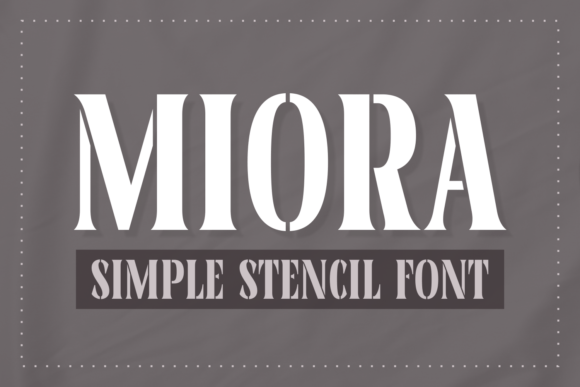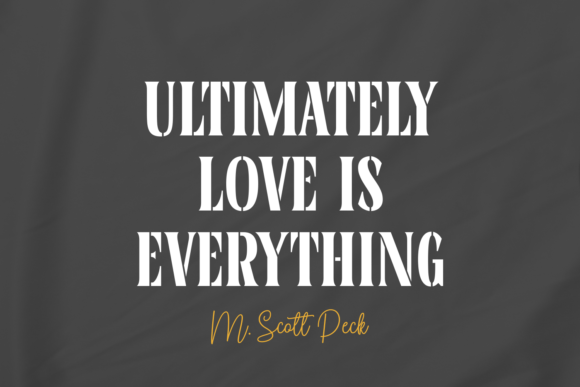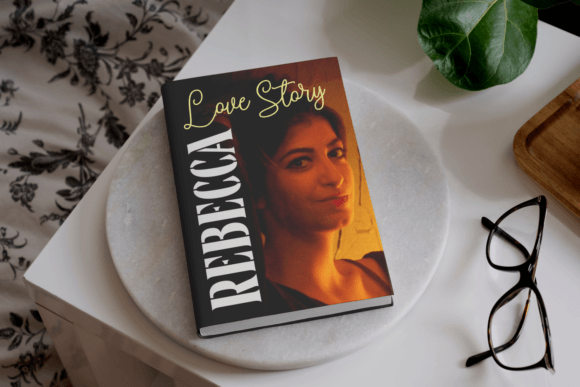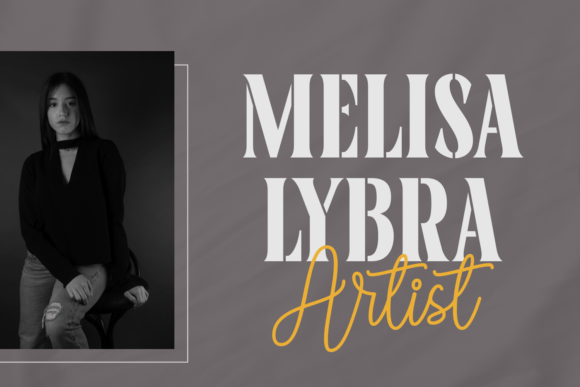
Miora Font: A Bold Stencil Serif for Headlines & Logo Design
About the Miora Font
The Miora Font is here to transform your projects with its distinctive character and style. Introducing Miora, a remarkable blend of sophistication and adaptability. As a Serif font, Miora is an attractive choice for branding, creating an iconic image that adheres to the mind. Its clean design makes Miora ideal for creating high-end fashion magazine content or stately book covers. This font is also perfect for making statements on apparel and t-shirts, while its quotable nature lends its use to memorable greeting cards. With a touch of authenticity, it has the power to transform packaging design, adding a luxurious feel. The trendy and seasonal adaptability of Miora combines the practical benefits of stencil fonts with the elegance expected in advertising, editorial, and web design spaces. The name “Miora” is synonymous with style, making it an irresistible asset for robust visual communication. The beauty and versatility of Miora awaits your command.
Miora Font Usage Examples
Miora Font Example